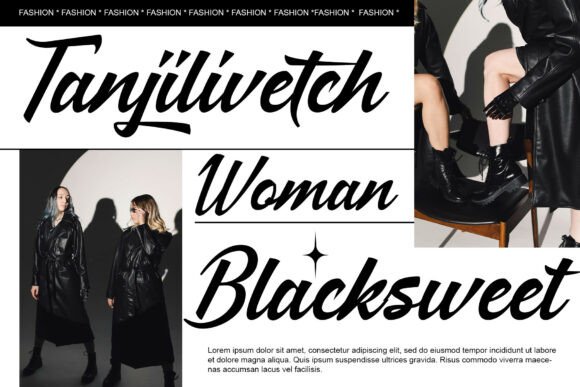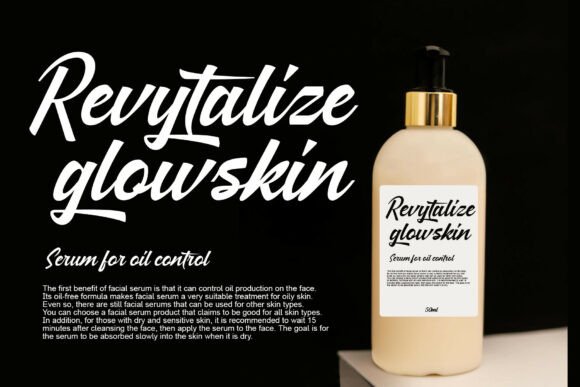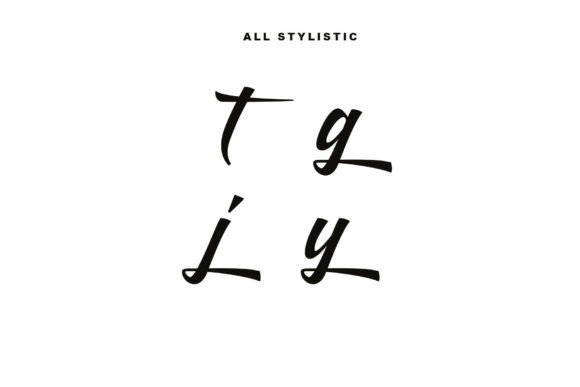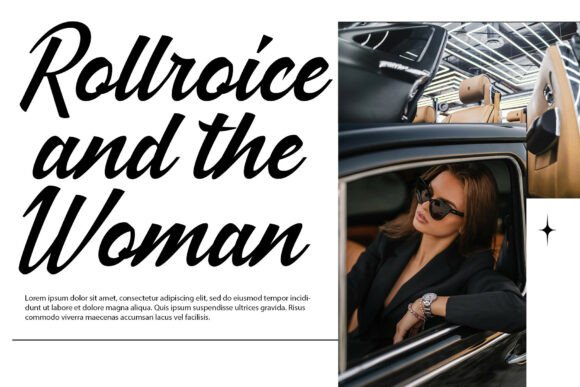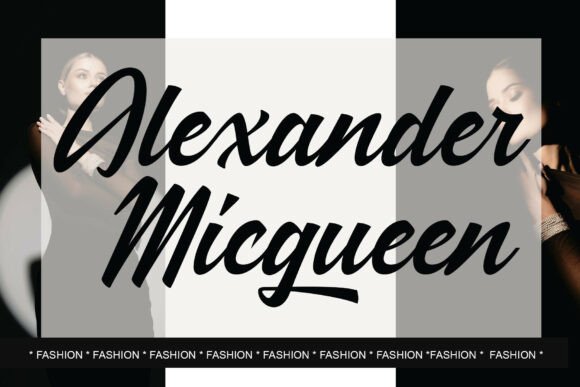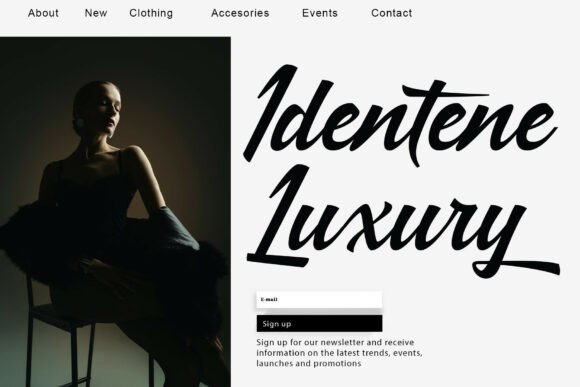
Uncovering the Elegance of Burieds Authentic Font
I’ll never forget the design project that led me to discover Burieds Authentic Font. I was working on a branding campaign for a high-end fashion label, and I was struggling to find the perfect font that exuded both vintage charm and modern sophistication. The client wanted a logo that would make their brand stand out, but still convey a sense of timeless elegance. After hours of scouring font libraries and design marketplaces, I stumbled upon Burieds Authentic Font – and it was love at first sight! 💕
A Designer’s Honest Review
What I Love About Burieds Authentic Font ✨
- ✅ Unique blend of vintage and modern styles: Burieds Authentic Font seamlessly merges nostalgic curves with sharp, modern edges, making it perfect for projects that require a touch of classic elegance.
- ✅ High-impact classy script: This font is designed to make a statement, with bold, slanted strokes that command attention and exude confidence.
- ✅ Clean and expressive curves: The design features smooth, flowing curves that provide a strong visual presence without being too overpowering.
- ✅ Multilingual support: Burieds Authentic Font comes with a range of characters and glyphs, making it suitable for projects that require support for multiple languages.
While Burieds Authentic Font is an exceptional design, there are a few minor quirks to be aware of:
- 🤔 Some characters may require manual kerning: As with any font, you may need to adjust the kerning of certain characters to achieve optimal spacing.
- ⚠️ Not ideal for body text: Due to its bold and expressive nature, Burieds Authentic Font is best suited for headlines, titles, and short paragraphs, rather than lengthy body text.
The Story Behind Burieds Authentic Font
Burieds Authentic Font was designed with the goal of creating a unique, high-impact script font that would blend vintage charm with modern sophistication. The designer, inspired by classic typography and modern design trends, crafted a font that would exude confidence, elegance, and a touch of nostalgia. With its bold, slanted strokes and clean, expressive curves, Burieds Authentic Font is the perfect choice for designers looking to add a touch of class to their projects.